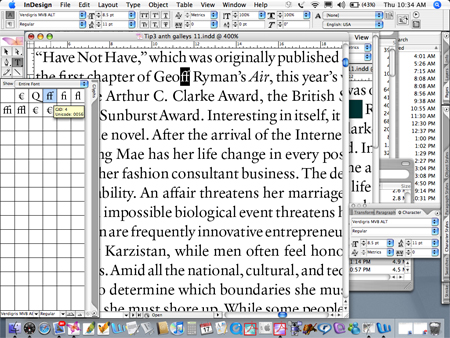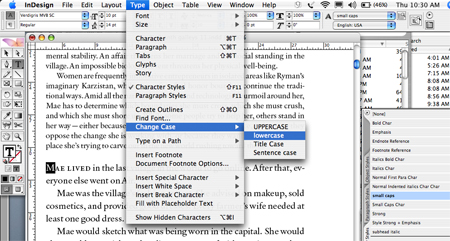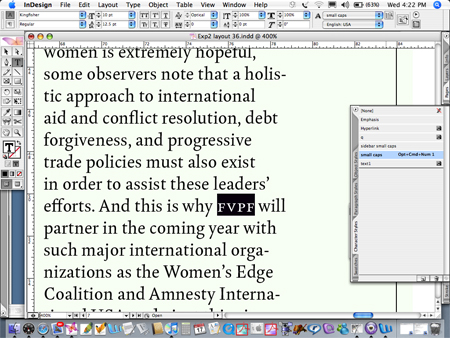
dot-font: Using Expert Characters and Expert Sets
Extra typographic characters, the elements that make fine typography possible in digital typesetting, used to be unavailable in a standard font. If they existed for an individual typeface, they were packed into a second, supplementary font known as an “expert set.” The expert set was a separate font, and you had to pay for it separately, but it was typically a fraction of the cost of the primary font.
Although I’m writing in the past tense, you can still buy plenty of text fonts with supplementary expert sets, not to mention all those residing on many of our machines (including mine). But since the advent of OpenType fonts, which can hold tens of thousands of characters in a single font (instead of the 256 of a single-byte PostScript or TrueType font), it’s no longer necessary to segregate the expert characters in a different font (Figure 1).
Figure 1. These typographic refinements can often be found in an expert set or an OpenType Pro font.
Not all OpenType fonts contain extra characters—they may be nothing more than the character set of an older PostScript or TrueType font repackaged in OpenType format—but the possibility is always there, and a lot of digital type foundries have taken advantage of it. Some foundries sell fonts, labelled “Pro,” that include a host of typographic refinements and extra characters (though technically, the “Pro” designation, which began with Adobe, doesn’t refer to expert characters but to multilingual capabilities). With an OpenType font that contains thousands of extra and alternate glyphs, the question becomes how the software can access them, and how you can put them to use.
So there you have the two problems of using expert characters. In a PostScript font, how do you use that supplementary font and its character set when you’re putting together a publication or designing an ad; and in an OpenType Pro font, how do you get at all the extra goodies?
Using an Expert Set
A typical expert set might contain small caps, oldstyle figures, and a full set of f-ligatures (fi, fl, ff, ffi, ffl) to supplement a basic font that uses only modern (cap-height) figures and (at least in the Macintosh character set) the fi and fl ligatures. (The default Windows character set doesn’t even include those two common ligatures.) I have typeset many books using this set of supplementary characters. Other expert sets may include fractions, alternate characters, extra ligatures, and typographic ornaments. Some have been called “SCOSF” fonts, for “small caps and old-style figures.”
If you know what you need, it’s not hard to locate a particular character in any font (Figures 2 and 3). You look for it in a utility like Key Caps or in an internal tool like InDesign’s glyph palette. (Or you simply copy it from another document that uses the glyph you need. This is an often-overlooked and very simple way of extending your typographic reach.)
But how do you use things like oldstyle figures and ligatures consistently and efficiently in a production typesetting environment, when you’re churning out long documents?
With PostScript fonts and expert sets, it’s a matter of good old search-and-replace (Figures 4 and 5). You have to search your document for the letter combination f+i, for instance, and replace it with the ligature fi. But there a few pitfalls. You don’t want to include a name like Fitzgerald in your search, ending up with a lowercase “fitzgerald” that starts with a ligature. And since, as far as your software is concerned, that “fi” ligature is a unique glyph—not a combination of “f” and “i” at all, no matter what it may look like, but a particular character at a particular position in a separate font—once you’ve replaced all the f+i combinations with fi, your next search won’t find that combination when you’re looking for f+f+i. So you have to apply a certain logic to constructing a search-and-replace sequence.
Search-and-Replace Logic
First, make sure your search is case-sensitive; you only want it to affect lowercase letters. Next, make sure that you have not checked a box telling it to look only for whole words; by definition, none of these ligatures is a complete word in itself (at least in English).
Start with the largest combination: either f+f+i or f+f+l. Search for that combination in your regular text font, and replace it with the ffi or ffl ligatures in the expert font. (Usually the f-ligatures follow a set pattern: They’re in the position, in the expert font, of capital V W X Y Z. So if you type a capital-Z into the “replace” field while you’re searching, and specify the expert font, what you’ll see on the page will look like ffl.) I usually do the first couple of replacements manually, just to be sure I have the right character and haven’t forgotten something; then I click “Replace all.”
After replacing ffi and ffl, you can search for f+f without fear of missing it. Then, after you’ve dealt with all the three-letter combinations, search for f+i and f+l (first one, then the other, though the order here doesn’t matter). That’s all there is to it.
To change all the lining figures to oldstyle figures, you have to do ten separate searches, one for each digit. Yes, it’s tedious, but it’s straightforward. Search first for the numeral 1 and replace it with the figure 1 from the expert font, and keep going until you’ve gotten through 9. (Don’t forget zero.) If you’re dealing with money, and the expert font has a differently designed dollar sign, you might want to search for “$” too. Same with any other currency symbol.
Depending on the font, you may have to do all of this again for the italic or bold, after finishing with the roman. Or you may get them all at once, if the font recognizes “italic” and “bold” as linked styles (and you left those styles unspecified). Just follow through logically and check your results.
Changing an acronym or a few words ALL IN CAPITAL LETTERS to small caps is a two-part process, using expert sets. It doesn’t matter which order you do them in, but you have to do both. First, select the text. Then, change the font to the expert set or SCOSF font. But in most of these fonts, the small-caps characters are in the lowercase positions on the keyboard; the uppercase characters are ordinary full caps (In some expert fonts, the full caps are missing entirely.). So you have to take this second step: change the case of the selected text (Figures 6 and 7). Or, of course, you could always simply retype the word, if that’s quicker.
OpenType Typography
OpenType fonts are much more sophisticated pieces of software, and they make your life much easier. At least they do if you’re using an application that knows how to exploit the capabilities of the full OpenType character set. InDesign has been doing this for some time; QuarkXPress is finally catching up. I’ll use InDesign for my examples, since that’s what I’m most accustomed to.
OpenType fonts have a number of different attributes that can be programmed into them; it’s up to the font designer to decide which ones to use. There are, for instance, potentially several different levels of alternate characters; the font designer decides which alternate glyphs to include in the basic set, which belong in a more elaborate set (for fancier effects), and which should only appear when you’re using the most decorative set. Normal typographic refinements, such as standard ligatures, fall into the first category. (An oddity of some Adobe Originals Pro fonts is that there’s a T+h ligature included in the “basic” set. If you really hate it, you can search for T+h and then turn off ligatures for that letter combination.)
In InDesign, look at the Character palette. There’s a little circled arrow in the upper-right corner, which displays a flyout menu when you click it. On that menu, you’ll see choices such as “Superscript” and “Underline”. At the top of the list is an entry labeled “OpenType,” which opens up a submenu with nothing but the possible OpenType typographic features. That’s where you’ll choose the OpenType features you want.
To use old-style figures consistently, select the text you want to apply them to (maybe the entire text of your document), then choose “Proportional Oldstyle Figures” from that flyout submenu. Some OpenType text typefaces have old-style figures defined as the default style for numerals; in those cases, if you want lining (modern) figures—in a line of all-caps, for instance—you simply select the text and choose “Proportional Lining Figures.”
A few OpenType Pro fonts even include non-proportional versions of old-style figures; that is, old-style in form but uniform in width. These are handy for annual reports or any document with columns of figures that need to align with each other, where you’d still like the elegance and readability of old-style figures. (Old-style figures are more readable, just as lowercase letters are more readable than all-caps. Always use old-style figures in text, if they’re available and appropriately designed.)
If the font includes numerals designed specifically to serve as the numerators and denominators in fractions, you can use the OpenType submenu’s “Fractions” command to turn an awkward faked construction like “1/2” into a true fraction.
One of the pleasures of OpenType’s typographic features is that you can apply true small caps to an acronym in one step (Figure 8). The OpenType “All Small Caps” feature automatically makes every letter selected a small cap, whether it began life as lowercase or uppercase. There’s no need to go through the text and change all-caps to lowercase letters before making them small caps.
You can build this capability into a character style, give it a keyboard shortcut, and have it at your fingertips during production typesetting (Figure 9). I regularly use a “small caps” character style, which I can then apply just by selecting text and clicking in the Character Styles palette (or using a keyboard shortcut that I’ve created). If an acronym appears frequently in your document, simply use the Find/Change dialog box to search for that acronym and apply the small-caps style to it.
Automating Quality
By enabling the typographical enhancements in an OpenType Pro font, you can add a layer of typographic quality to your text without having to jump through hoops every time you want to do it. Reserve the more baroque and decorative things, such as swash capitals, for special occasions, when fanciness is appropriate and not just a distraction (Figure 10).
But the basic level—full ligature support, old-style figures, true small caps—ought to be the default for text typography in almost any situation. With OpenType’s typographic features, and applications that support them, they can be.